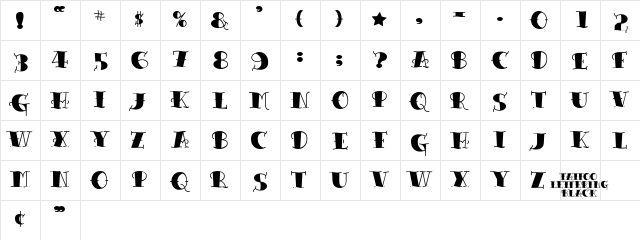
TattooLetteringBlack Regular
Design Context for TattooLetteringBlack Typeface
TattooLetteringBlack is a composed and adaptable typeface that performs quietly and consistently across a wide range of design contexts.